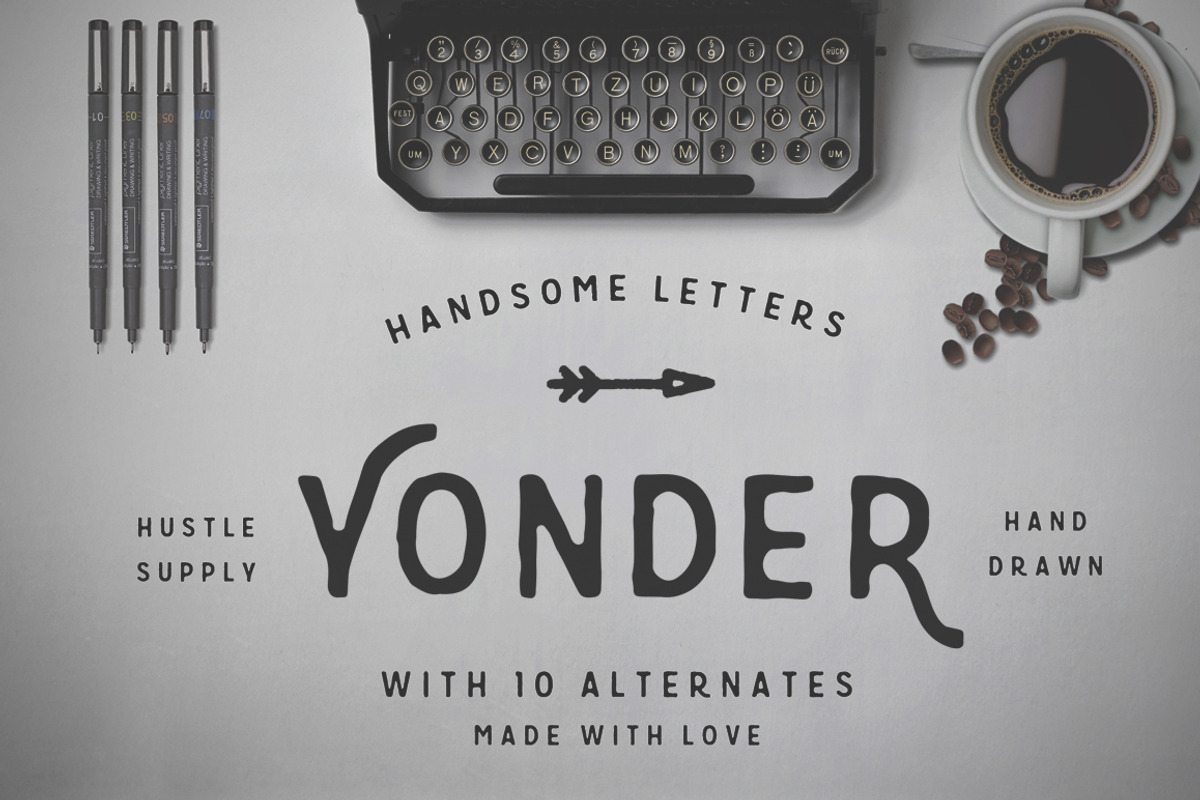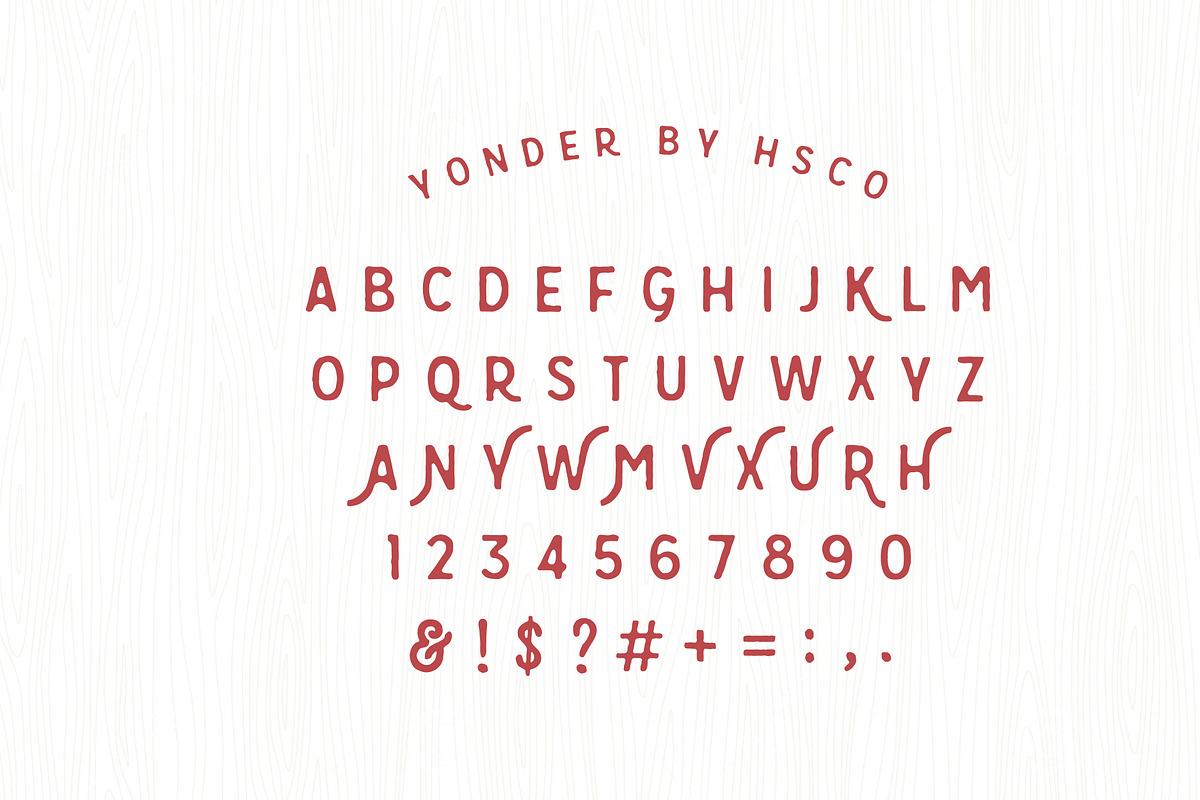
Yonder - Hand Drawn Font
Yonder - Hand Drawn Font by Hustle Supply Co. is a font selected for branding, posters, packaging, typography.
Why Yonder - Hand Drawn Font is worth a look
Yonder - Hand Drawn Font by Hustle Supply Co. fits naturally into Branding, posters, packaging, typography.